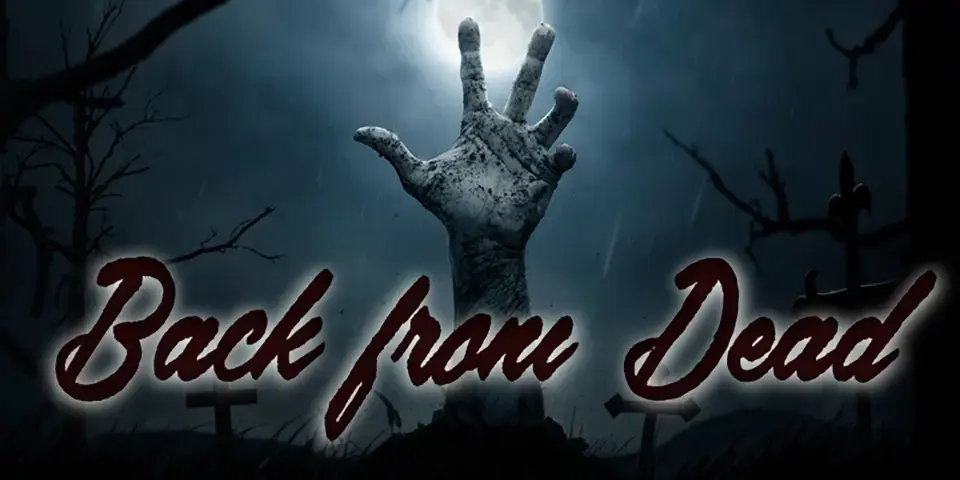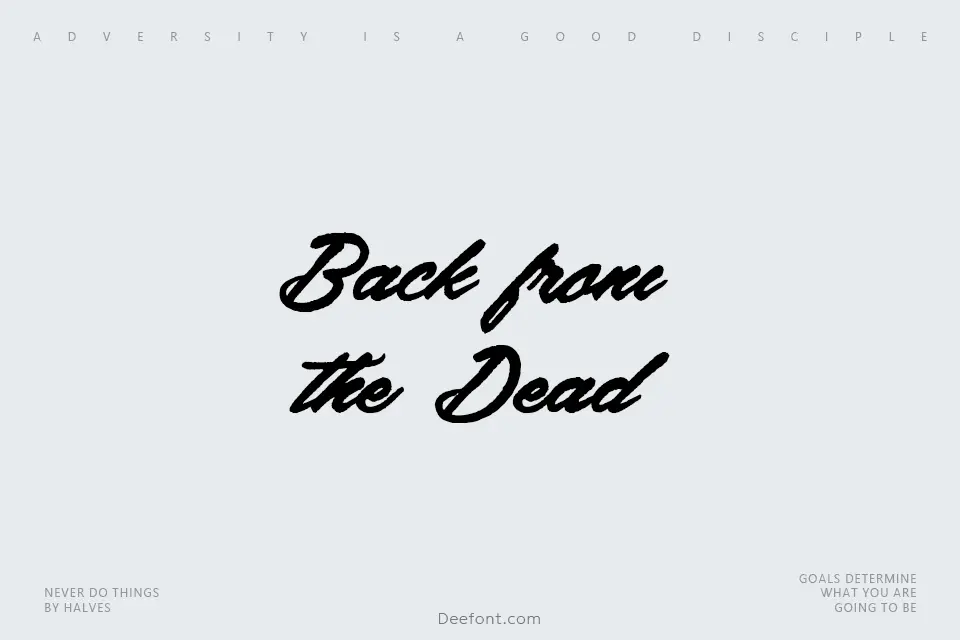
Back from the Dead Font
Back from the Dead is a distinctive flowing handwritten script font that combines organic, connected letterforms with artistic flair. Featuring smooth, joined strokes and a natural pen-drawn aesthetic, this typeface evokes vintage horror posters and contemporary spooky designs. Ideal for Halloween party invitations, horror movie titles, theatrical event branding, haunted house signage, and decorative poster work, the font delivers authentic handwriting charm perfect for designers seeking character-rich, atmospheric typography for seasonal and thematic projects.